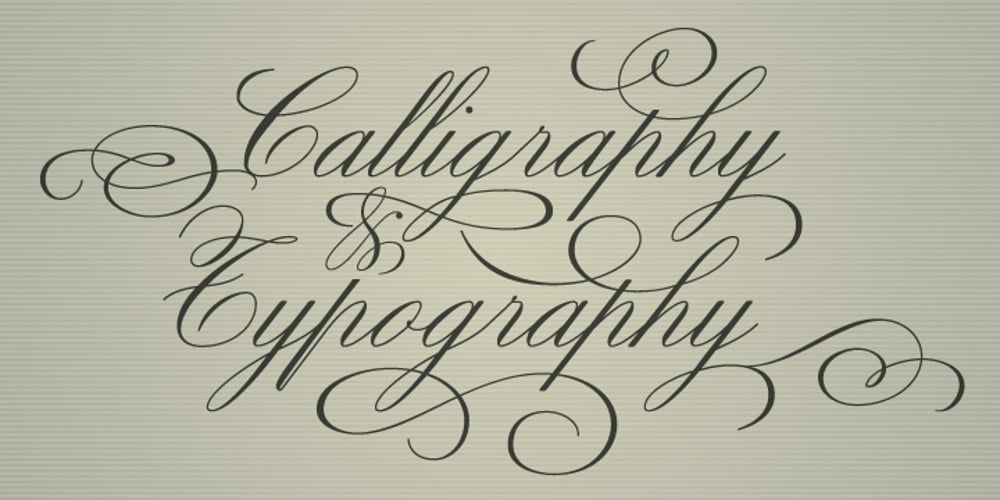
Valliciergo Font Family was designed by Josep Patau and published by Tipo Pèpel. Valliciergo contains 1 styles and family package options. This font is inspired by the samples of the booklet “Caligrafía inglesa” published in Madrid in the late nineteenth century by the spanish calligrapher Vicente Fernández Valliciergo. Hundred of new glyphs have been added, taking advantage of Opentype features. Ligatures, decorative figures, initials and final forms, inspired in the samples of English Calligraphy as shown in “The universal penman” by George Bickham have been added to the font. The result is Valliciergo, a font with more than 1000 glyphs, meant to be a useful tool to simulate the master strokes of the great calligraphers.